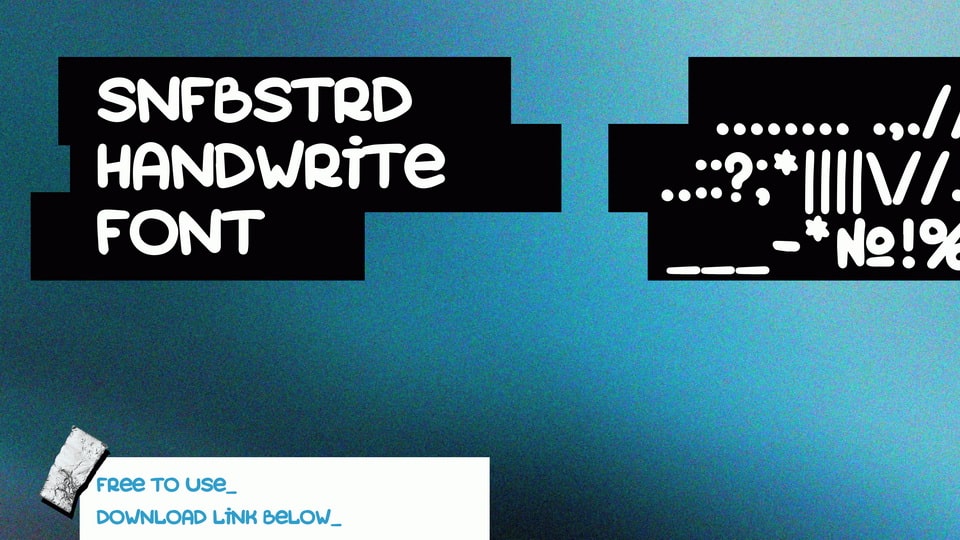
Download SNFBSTRD Handwrite is a simple and organic hand lettered font with a playful vibe. Great for any project that needs a personal touch.
Designer: Roman Barygin